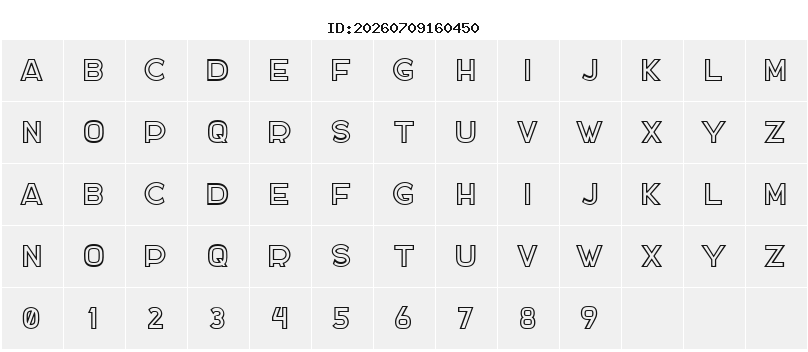
• Font Name: DOCKER TWO
• Font Style: TWO
• Full Font Name: DOCKER TWO
• Designer: Slava "Designvamp" Krivonosov
• Manufacturer: Slava "Designvamp" Krivonosov
About DOCKER TWO.ttf
DOCKER TWO.ttf is a modern, elegant sans-serif font designed for ultimate readability and visual harmony. Perfect for branding, headlines, web design, and print materials.